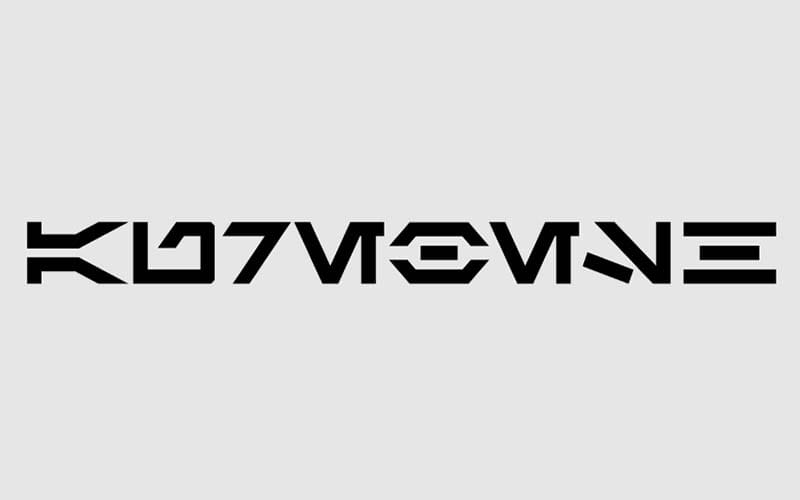
Aurebesh Font is a dingbat, tv-movie typeface featuring an awesome creative texture that is based on the legendary Star Wars “Galactic Standard” typeface. It was designed and shared by Pixel Sagas.
This display font has available with eight standard weights including Regular, Italic, Bold, and condensed versions. Each weight has 95 glyphs along with 241 characters.
It presents an irregular shape that really looks like a bestowing in every letter. All posts are created with thick strokes just to make this amazing font more stable.
Aurebesh Font
Because of the almost identical features, we got there. Because of its solidity, it will provide a bold texture when you apply it. So, feel free to apply to display designs. So, take advantage of this opportunity and get a better design.
Due to its unique letters, you can openly use them to create movie posters, brand logos, unique emblems, company secret projects, game graphics, product designs, fabric printing, invitations, and many more.